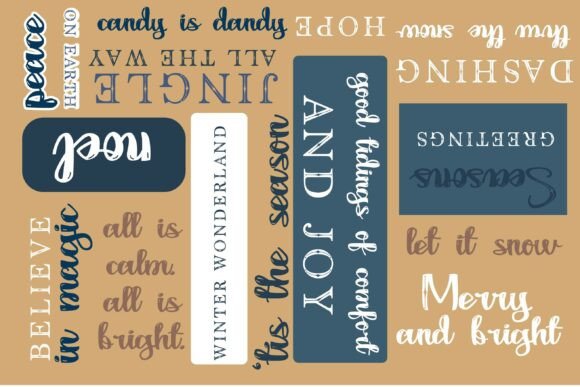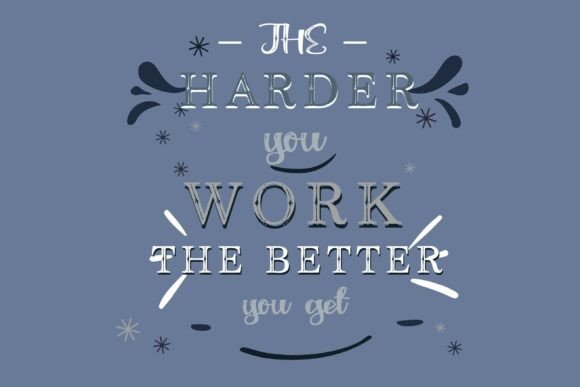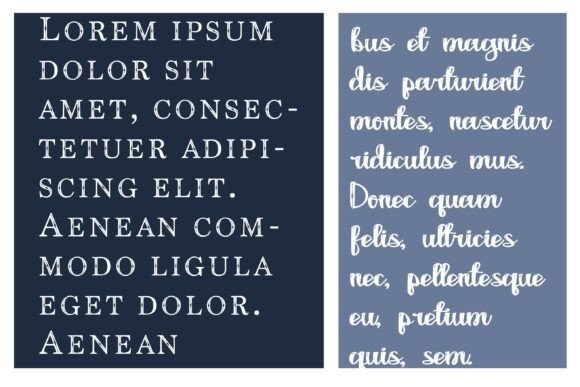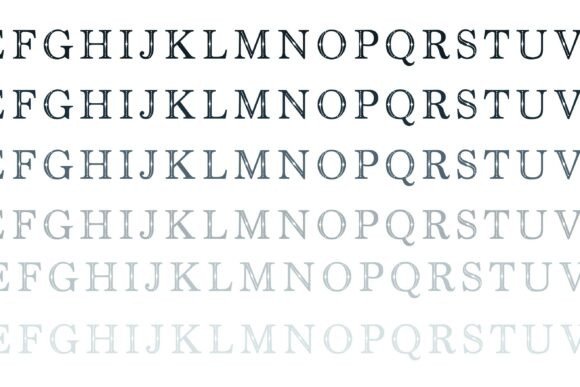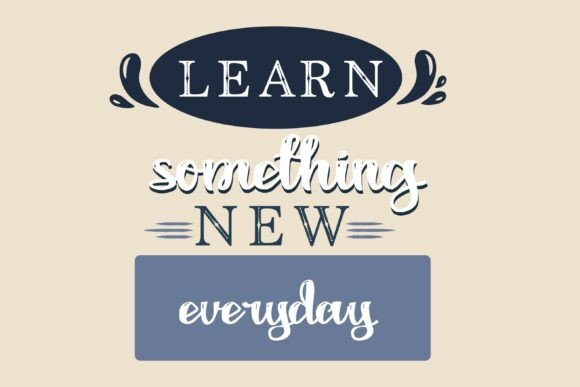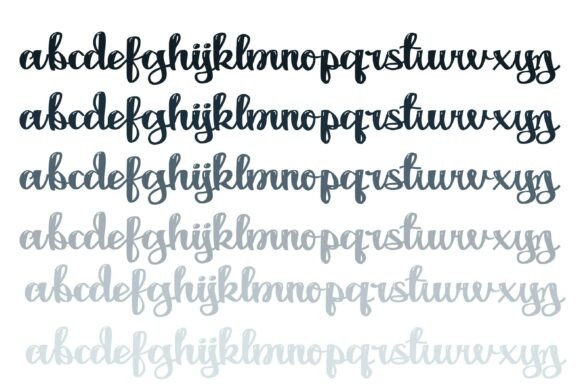
Introduction to Noel Nuevo Duo Font
As the holiday season approaches, many of us designers find ourselves scrambling to create the perfect design elements that evoke a sense of luxury and sophistication. Whether you’re working on a high-end packaging project or a personal holiday card, finding the right font can make all the difference. That’s where the Noel Nuevo Duo Font comes in – a stunning hand-crafted font duo that combines the elegance of a serif with the whimsy of a perfectly coordinated script.
With its clean lines, timeless feel, and beautifully coordinated tag dingbat font, the Noel Nuevo Duo Font is an invaluable design resource for any creative project. Not only does it come with a bonus tag dingbat font, but it also includes a total of 10 fonts when all family members are combined – making it a must-have for designers looking to add a touch of luxury to their designs. And the best part? You can download it for free, making it an accessible and high-quality design resource for designers of all levels.
From formal announcements to high-end packaging, the Noel Nuevo Duo Font is the perfect addition to any design project. With its transparent background and high-quality design, it’s a versatile and valuable resource that’s sure to elevate your designs to the next level.
Noel Nuevo Duo Font
- High-quality design resource ideal for creative projects requiring a unique and elegant touch.
- Includes two font styles, each with its own distinct characteristics, making it perfect for projects requiring a duo aesthetic.
- Unique characteristics include a classic and sophisticated feel, with subtle nuances that add depth and interest to any design.
Honest Review: Noel Nuevo Duo Font
- ✨ Unique and stylish design, perfect for adding a touch of elegance to any project
- ✨ High-quality font files that are crisp and clear, even at large sizes
- ✨ Transparent background, making it easy to overlay on any image or design
- ⚠️ Limited font weights and styles available, which may not be suitable for complex designs
Overall, I’m impressed with the Noel Nuevo Duo Font. It’s a great design resource for anyone looking to add a touch of sophistication to their project. While it may have some limitations, its high quality and unique design make it a worthwhile download.
To get the most out of this font, use it on a transparent background for a clean and modern look. You can also pair it with other fonts to create a unique design. Experiment with different font sizes and colors to achieve the desired effect.
The Noel Nuevo Duo Font is perfect for creating invitations, business cards, and other marketing materials. Its elegant design makes it ideal for wedding invitations, luxury brand designs, and more.